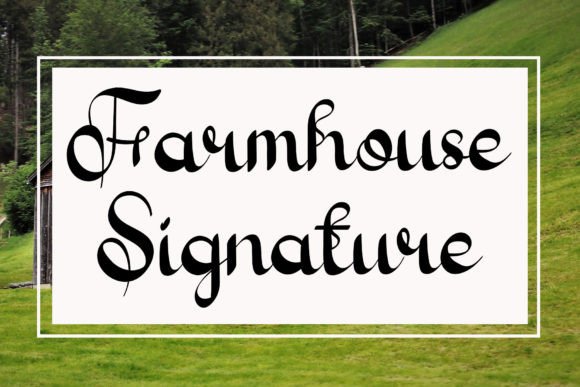
Introducing Farmhouse Signature Font, the perfect choice for all your creative projects! Created by BabyArt, this unique and elegant script font is meticulously designed to add a professional hand touch to your work.
With its captivating and versatile style, Farmhouse Signature Font is the ultimate solution for your invitation card needs. Whether it's a wedding, birthday, or any other special occasion, this font will elevate your designs to a whole new level.
Imagine the excitement your loved ones will feel when they receive an invitation adorned with this beautiful font. Its exquisite curves and graceful strokes will instantly capture their attention and create a lasting impression.
But Farmhouse Signature Font isn't just limited to invitation cards. It's also perfect for a wide range of projects. Whether you're designing logos, branding materials, or social media posts, this font will make your creations stand out from the crowd.
The versatility of Farmhouse Signature Font allows you to experiment with different styles and layouts, giving you endless possibilities. Its clean and legible characters ensure that your message is conveyed with clarity and elegance.
Not only does this font look stunning, but it also performs flawlessly across various platforms and devices. Whether your audience is browsing on a desktop, tablet, or smartphone, your designs will always look pixel-perfect and professional.